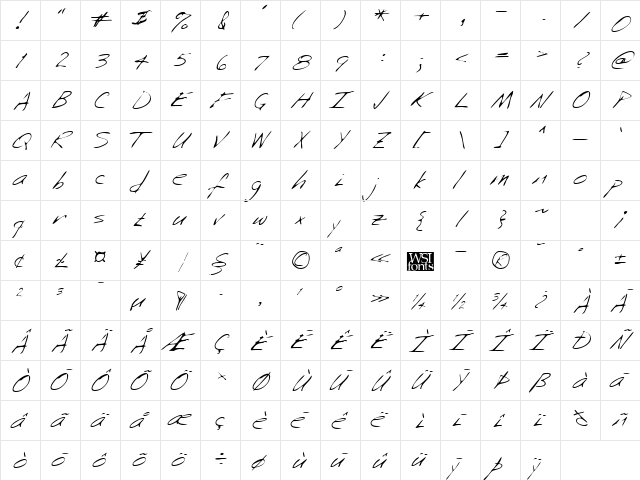
SaffronsHand Regular
Design Context for SaffronsHand Typeface
SaffronsHand brings a calligraphic fluidity to the page — its connecting strokes and expressive curves give it an unmistakably human quality.
Font Pairing: Combine SaffronsHand with a simple geometric sans for maximum contrast — the tension between flowing curves and clean structure is a classic typographic pairing.
Pro Tip: Use SaffronsHand for short runs of text — names, titles, or taglines. Extended body copy in script faces tires the eye quickly.